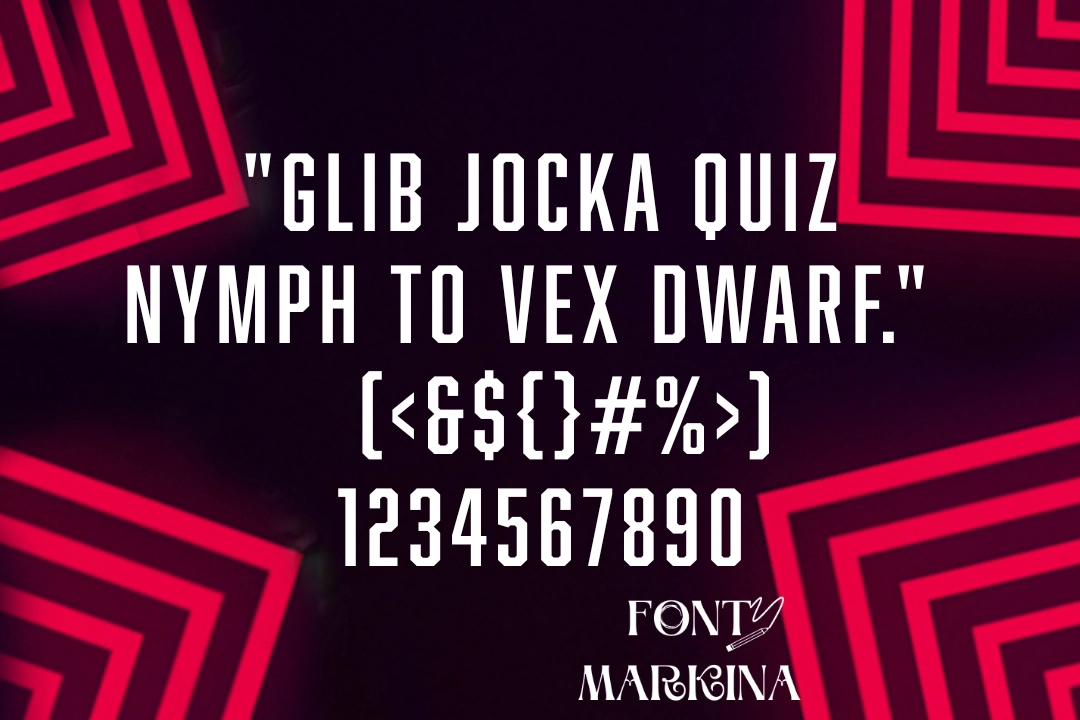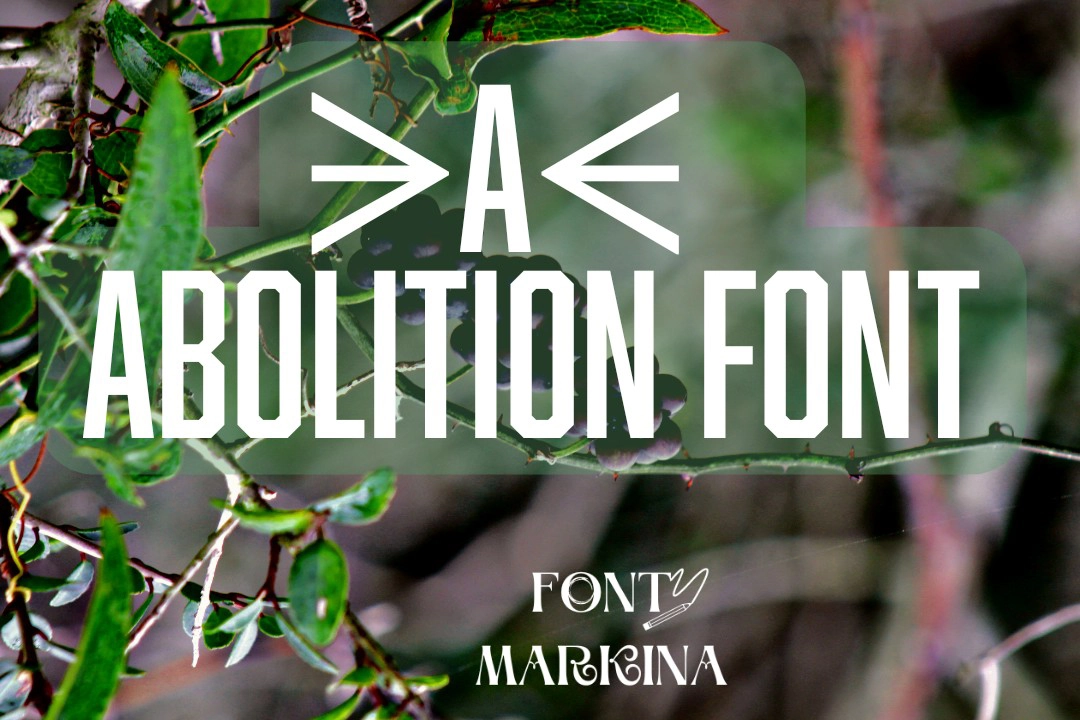
Mattox Shuler a competent designer is the charge of releasing and designing this font. He released it through Fort Foundry. It is a definitive texture that has sharp features.
It is from the sans-serif family of fonts. The extraordinary feature has this font such as clear text form. It is a very reasonable font for the standard design.
The most qualitative thing about this family is its weights including sharp, round, round oblique, and sharp oblique. It is sans serif-case with a great legible appearance and the other one is the same. This is a good-quality typeface with features and characteristics.
Usage
This texture is used in digital marketing. It is the most acceptable font for logos. It agrees with Linux, Apple/Mac, Lightly converted to Webfont and other cutting devices. All YouTubers use such typeface and earn benefits with its features.
In the business sector, the use of this family is familiar. In the fields of creative designs like clothes printing and hats, decorations are done by using this font family.
Abolition Font View
| Name | Abolition Font |
| Designer | Mattox Shuler |
| Foundry | Fort Foundry |
| Style | Dispaly |
Why is Abolition a good font?
Due to its clear surface, it is reliable and easy to use. It is a lovely sans-serif font.